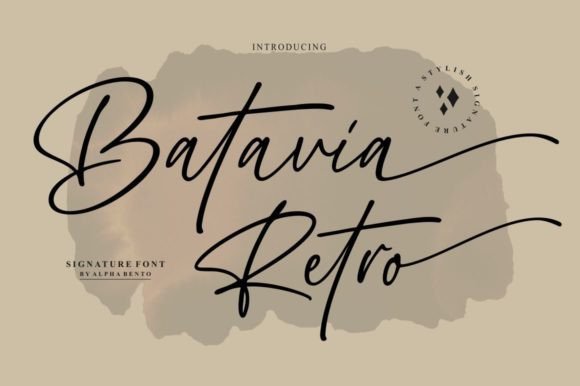
Looking for the perfect font for your website menus? Look no further than Batavia Retro Font! This stunning script font, created by Alphabento, is the perfect way to add a touch of modern elegance to your online presence.
Featuring a range of handwritten ligatures, Batavia Retro Font is a versatile typeface that can be used for everything from wedding stationery to social media quotes. Its chic and minimal design makes it the ideal choice for modern logos and branding, adding a touch of sophistication to any project.
But that's not all – Batavia Retro Font is also PUA encoded, making it incredibly easy to access all of its glyphs and swashes. This means you can create stunning signature logos and more, with ease and precision.